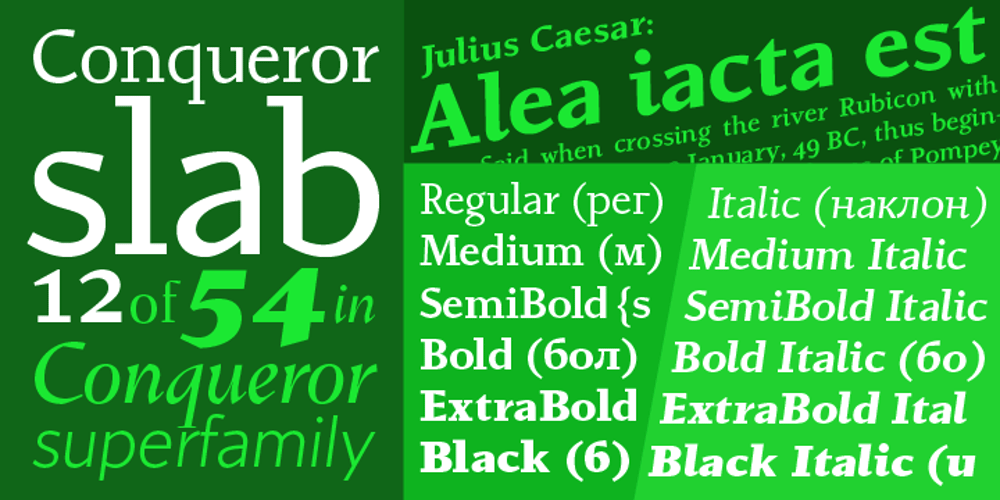
Conqueror Slab
Conqueror Slab font
Conqueror Slab Font Family was designed by Yuri Gordon and published by Letterhead Studio-YG. Conqueror Slab contains 12 styles and family package options. Conqueror Slab consists of 12 faces and is part of the Conqueror superfamily. The font is intended for headings and logos. Conqueror Slab — an intermediate link between the sharp Conqueror Display and quiet Conqueror Sans.